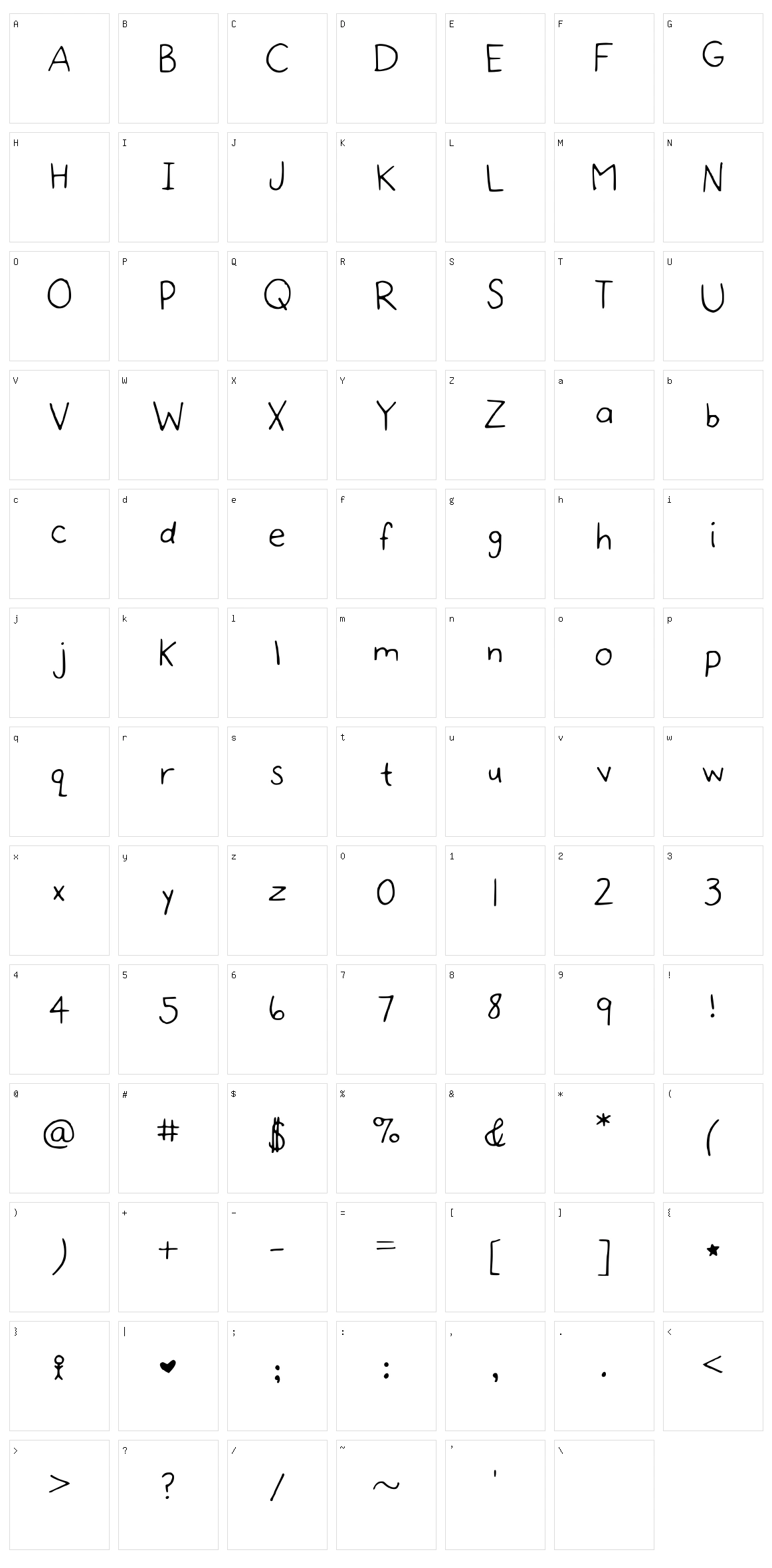
The free font Naomi is carefully designed by N Fonts, showcasing a thoughtful balance of creativity and usability and falls under the Script font style. When you download the ZIP file, it contains only 12 KB of font files, making it lightweight and quick to download. Please review the license details below to understand permitted usage and distribution rights. If license information is not available, we recommend using this font for personal projects only or contacting the author directly for commercial usage permissions.